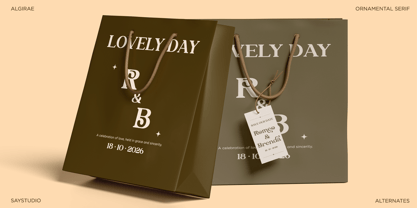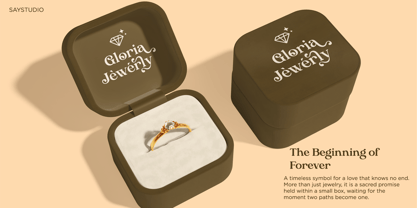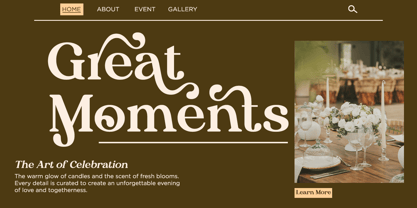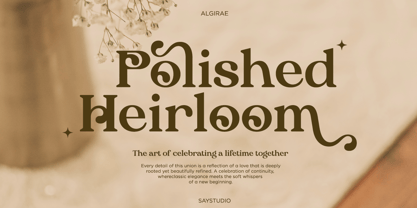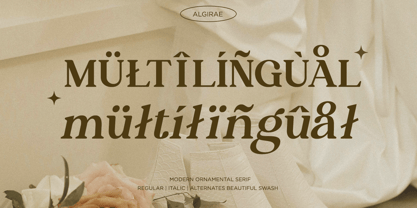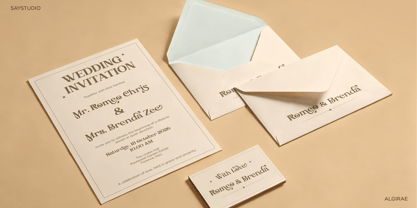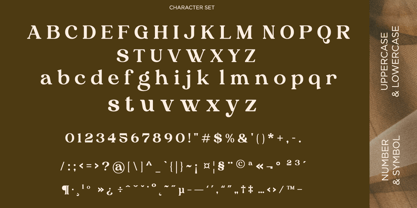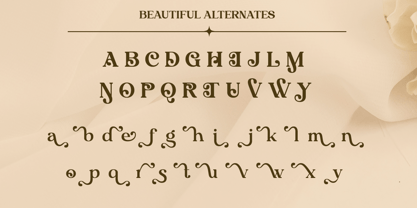
Algirae
by Say Studio
The Algirae Font Family was designed by Mussyayin and published by Say Studio. Algirae contains 2 styles and family package options. More about this family
Algirae is a modern ornamental serif typeface that infuses elegance, charm, and refined beauty into your typography. With its graceful curves, decorative details, and exquisitely crafted swashes, Algirae seamlessly blends classic serif sophistication with a contemporary aesthetic. This typeface is enhanced with stylish alternates and expressive swash characters, empowering designers to create unique and captivating compositions. Its smooth contrast and elegant letterforms make Algirae ideal for establishing a luxurious and romantic visual tone while maintaining readability. Algirae excels in various applications, including wedding designs, fashion branding, beauty products, editorial layouts, feminine logos, packaging, and sophisticated social media visuals. Whether utilized for headlines, logos, invitations, or premium branding projects, Algirae adds a graceful and artistic touch to every design. Crafted for creatives who appreciate detail and elegance, Algirae transforms typography into a refined visual statement. Thank You, Have a Wonderful Day Saystudio